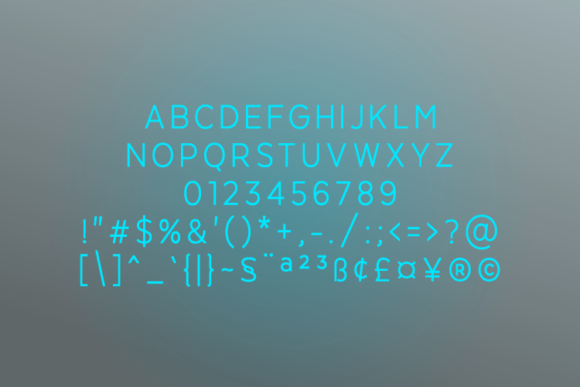
Agnella Medium Font: A Perfect Blend of Strength and Elegance
In the world of typography, fonts play a crucial role in conveying messages, expressing emotions, and creating visual identities. For designers and crafters, finding the right font can be a daunting task. However, if you’re looking for a sans serif font that exudes subtle elegance and strength, look no further than Agnella Medium Font. In this article, we’ll explore the features, benefits, and uses of Agnella Medium Font, and why it’s a great addition to your typography arsenal.
The Agnella Difference: Vertically and Horizontally Cut Stems
Agnella Medium Font is distinguished by its unique design element: vertically and horizontally cut stems. This feature gives Agnella a strong and steady appearance, making it perfect for a wide range of applications, from headings and titles to body text. The cut stems also add a touch of sophistication, setting Agnella apart from other sans serif fonts.
Agnella: A Font with Subtle Elegance
Agnella’s design is characterized by a subtle elegance that makes it suitable for various design projects. Its clean lines, balanced proportions, and carefully crafted letterforms create a visually appealing effect. Whether you’re designing a logo, brochure, or website, Agnella Medium Font is an excellent choice for adding a touch of refinement and sophistication.
Key Features of Agnella Medium Font
- Sans serif design: Agnella’s sans serif design makes it easy to read and versatile for various applications.
- Vertically and horizontally cut stems: This unique feature gives Agnella its strength and steady appearance.
- Subtle elegance: Agnella’s design is characterized by a subtle elegance that adds refinement to any design project.
- Clean lines and balanced proportions: Agnella’s letterforms are carefully crafted to create a visually appealing effect.
Benefits of Using Agnella Medium Font
Agnella Medium Font offers several benefits for designers and crafters, including:
- Improved readability: Agnella’s clean design and balanced proportions make it easy to read, even at small font sizes.
- Versatility: Agnella’s sans serif design and subtle elegance make it suitable for a wide range of applications, from print to digital media.
- Unique visual identity: Agnella’s cut stems and elegant design elements create a unique visual identity that sets it apart from other fonts.
Using Agnella Medium Font in Design Projects
Agnella Medium Font is an excellent choice for various design projects, including:
- Logos and branding: Agnella’s unique design elements make it perfect for creating memorable logos and brand identities.
- Print materials: Agnella is suitable for designing brochures, flyers, posters, and other print materials.
- Digital media: Agnella’s clean design and readability make it an excellent choice for digital media, including websites, social media, and email marketing.
In conclusion, Agnella Medium Font is an effective sans serif font with a touch of subtle elegance. Its unique design elements, including vertically and horizontally cut stems, make it appear strong and steady. With its clean lines, balanced proportions, and carefully crafted letterforms, Agnella is an excellent choice for designers and crafters looking to add a touch of refinement and sophistication to their design projects. Whether you’re designing a logo, brochure, or website, Agnella Medium Font is a great addition to your typography arsenal.